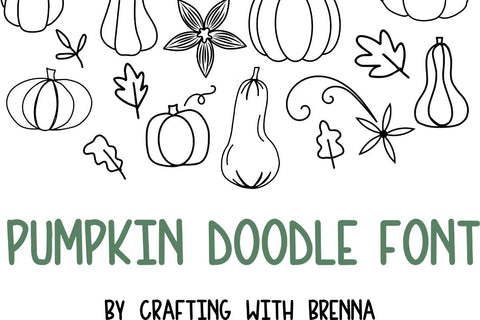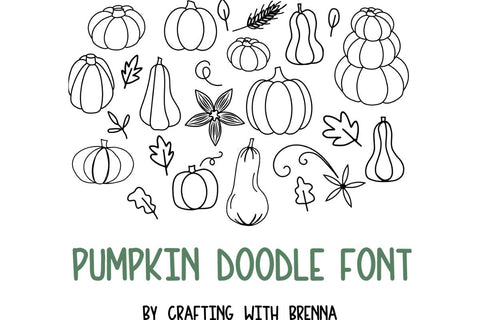
Pumpkin Doodle Dingbat Font
This font will be perfect for all your Craft projects! Use it to make custom shirts, keychains, valentines, tags, bags, and whatever else you can think of!